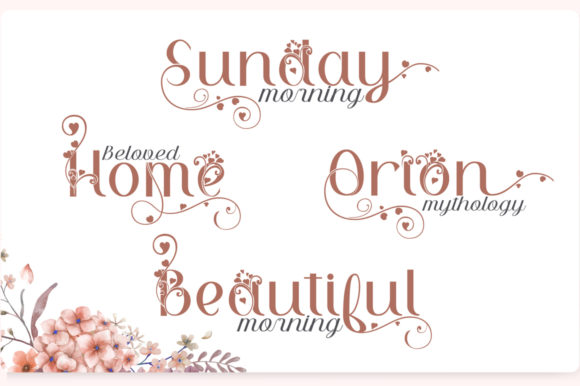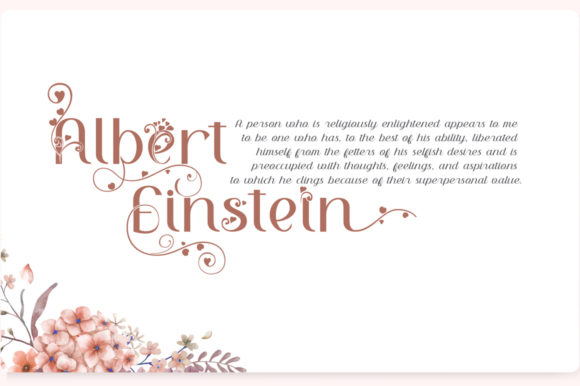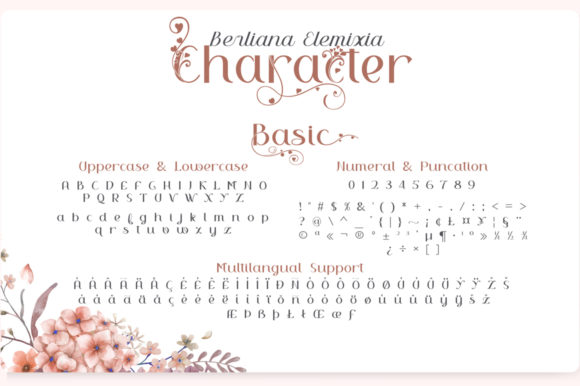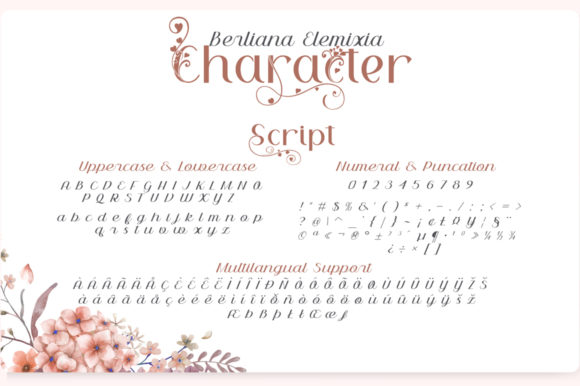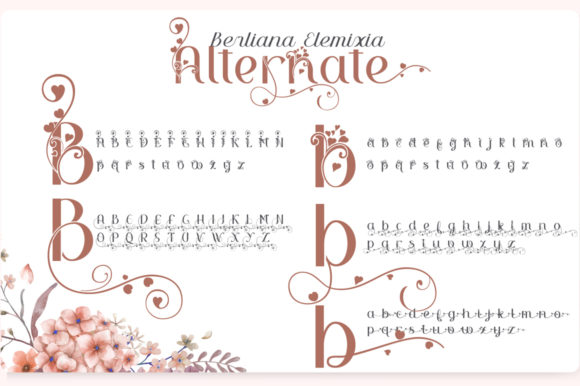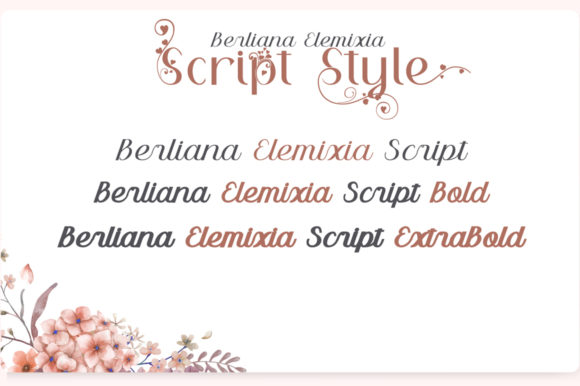
Introducing Berliana Elemixia Font: Elevate Your Designs with Elegance
Berliana Elemixia Font is a stunning display font that has taken the design world by storm. Its incredibly elegant and neat appearance makes it a versatile choice for a wide range of applications, from greeting cards to headlines. If you’re looking to add a romantic feel to your next project, look no further than Berliana Elemixia.
What Makes Berliana Elemixia Font So Special?
Berliana Elemixia Font boasts a unique blend of sophistication and charm. Its elegant lines and curves create a beautiful visual effect that is sure to captivate your audience. Whether you’re designing a wedding invitation, a magazine headline, or a social media graphic, Berliana Elemixia Font is the perfect choice.
Key Features of Berliana Elemixia Font
- Elegant and Neat Design: Berliana Elemixia Font features a sleek and refined design that exudes elegance and sophistication.
- Versatile Applications: From greeting cards to headlines, Berliana Elemixia Font can be used in a wide range of design projects.
- Romantic Feel: This font is guaranteed to add a touch of romance to your designs, making it perfect for wedding-related projects or any design that requires a touch of whimsy.
- High-Quality Design: Berliana Elemixia Font is designed with precision and attention to detail, ensuring a high-quality appearance in any design.
Tips and Tricks for Getting the Most Out of Berliana Elemixia Font
- Pair with Other Fonts: Berliana Elemixia Font pairs well with other fonts, such as sans-serif fonts or script fonts. Experiment with different font combinations to create a unique look.
- Experiment with Colors: Berliana Elemixia Font looks great in a variety of colors, from soft pastels to bold brights. Experiment with different colors to find the perfect look for your project.
- Use for Headlines and Titles: Berliana Elemixia Font is perfect for headlines and titles, where its elegant design can really shine.
Why Designers and Crafters Love Berliana Elemixia Font
Berliana Elemixia Font has quickly become a favorite among designers and crafters. Its elegant design and versatile applications make it a go-to choice for a wide range of design projects. Whether you’re a professional designer or a hobbyist crafter, Berliana Elemixia Font is sure to become a staple in your design toolkit.
In conclusion, Berliana Elemixia Font is an incredibly elegant and neat display font that is sure to elevate your designs. Its versatile applications, romantic feel, and high-quality design make it a must-have for designers and crafters. Whether you’re looking to create a stunning wedding invitation or a captivating headline, Berliana Elemixia Font is the perfect choice.